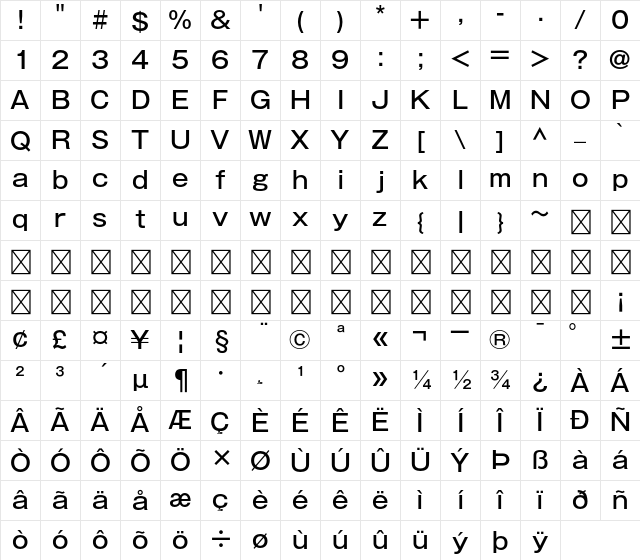
Complete A-OTF Gothic MB101 Pr6N M glyph index. Displaying only characters natively supported by A-OTF Gothic MB101 Pr6N M font.
A-OTF Gothic MB101 Pr6N takes a clean, functional approach - its unadorned letterforms prioritise legibility and work reliably across screen and print environments.
Font Pairing: Works well alongside a characterful serif or display font that can carry the expressive load while A-OTF Gothic MB101 Pr6N handles the functional copy.
Pro Tip: Use A-OTF Gothic MB101 Pr6N for UI labels, navigation, and short-form body copy where clean legibility is the priority.